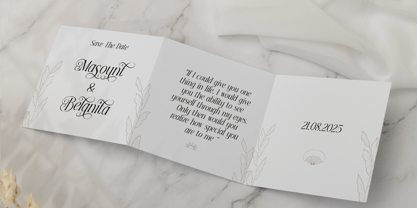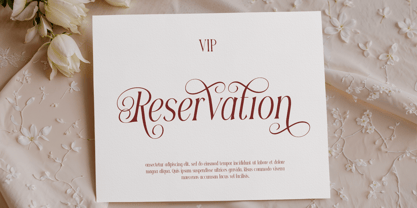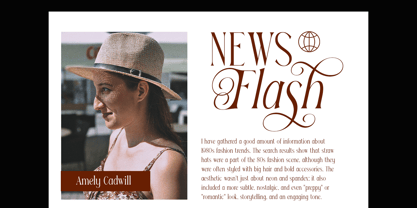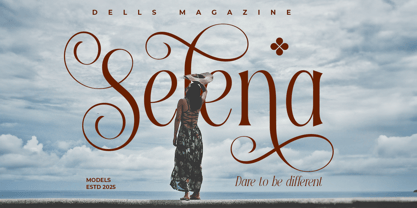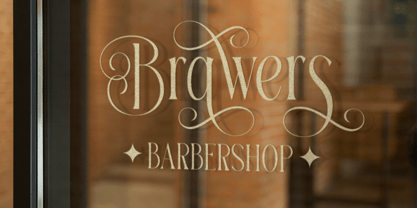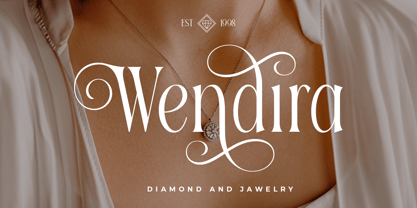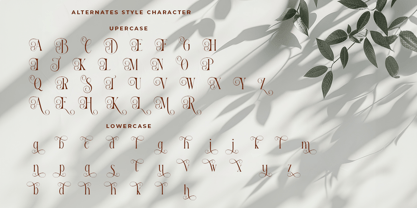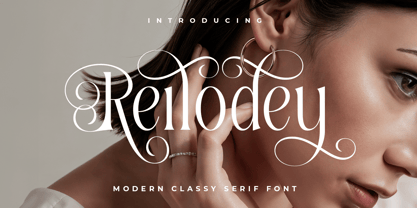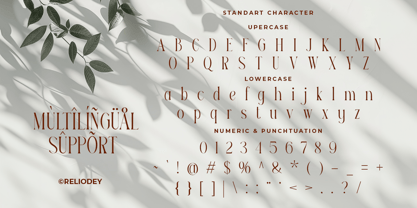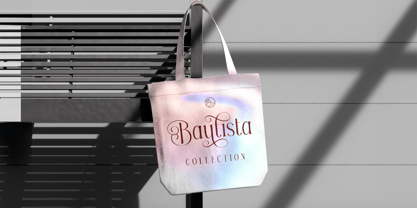
Reilodey
by RagamKata
The Reilodey Font Family was designed by Yogiswhara Dio Prakoso Riadi and published by RagamKata. Reilodey contains 2 styles and family package options. More about this family
Reilodey is a modern classy serif font inspired by classical calligraphy. Crafted with thin and condensed consistent strokes, this beautiful script font evokes a sense of minimalist, luxurious and classy. Reilodey is perfectly suited for branding, logotypes, quotes, labels, social media posts, advertisements, product packaging, product designs, label, poster, photography, watermark, invitation, stationery and any projects that demand classic with modern style.
- Classy Alternates
- Multilingual Support